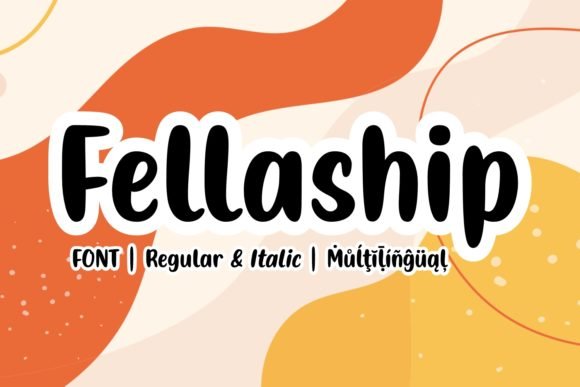
Introduction to Fellaship Font
Fellaship is a playful handwritten font.
It was carefully designed to fit any crafting idea or project you wish to develop .
Why Choose Fellaship Font?
Fellaship Font offers exceptional quality and versatility, making it a valuable addition to your design toolkit. Whether you’re creating for personal projects or commercial use, Fellaship Font delivers professional results.